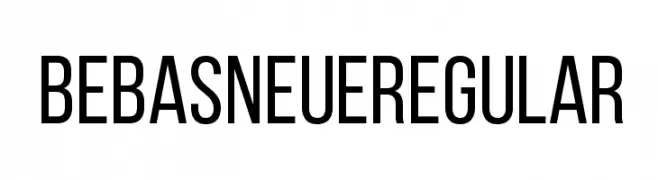
A bold, elongated font with a vertical emphasis and consistent stroke width.
A bold, modern sans-serif typeface with tall, narrow letters and strong vertical emphasis.